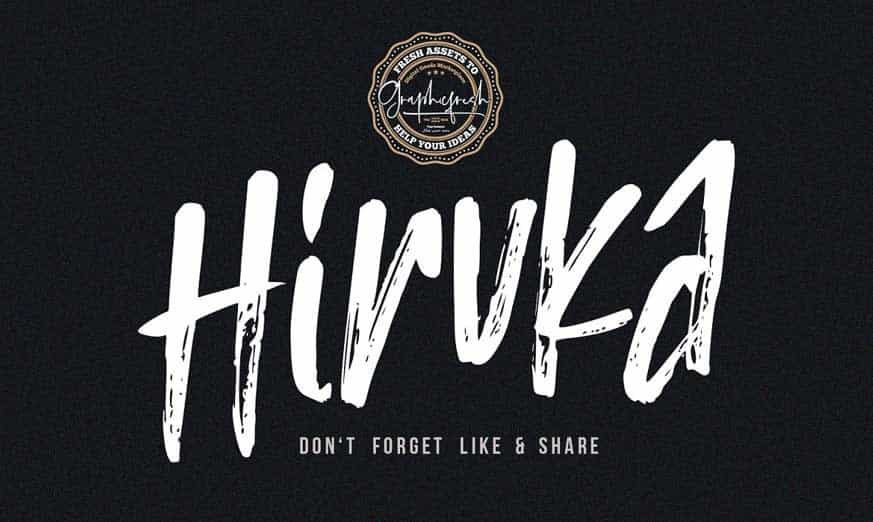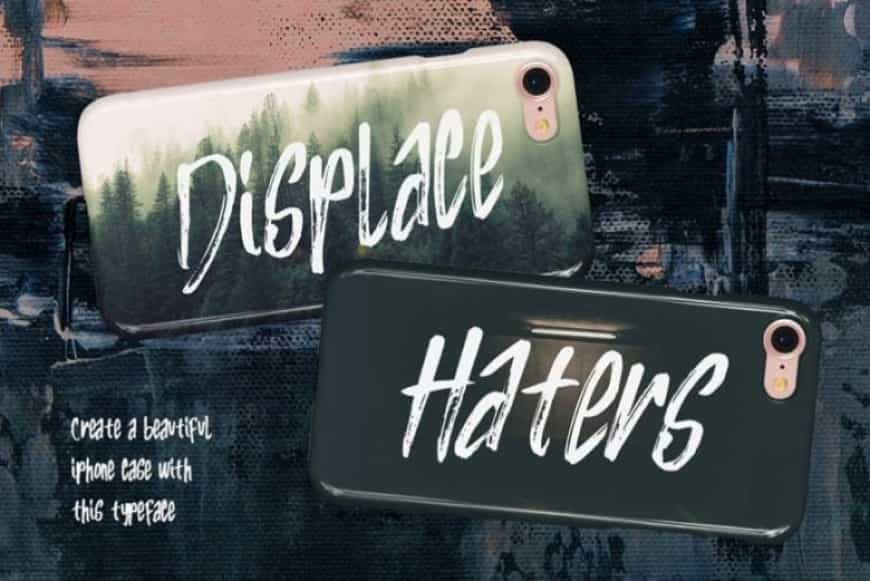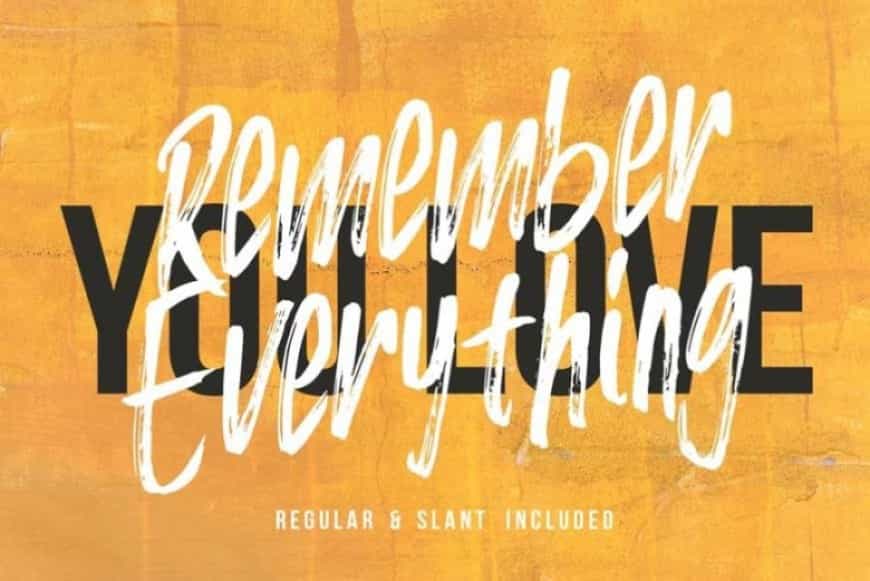
Discover HIRUKA Handbrushed Font, part of the Brush collection—a versatile and unique font perfect for adding a personal touch to your projects. Download it for free and enjoy crafting designs with style, from invitations to social media posts. This font is available exclusively for personal use, giving you the freedom to create without limits. Unlock your creativity with HIRUKA Handbrushed Font today!
Hiruka – A brush script typeface with a fresh take on the traditional look. Let our genuine features inspire you. Why not use any concept for designing as iua start point